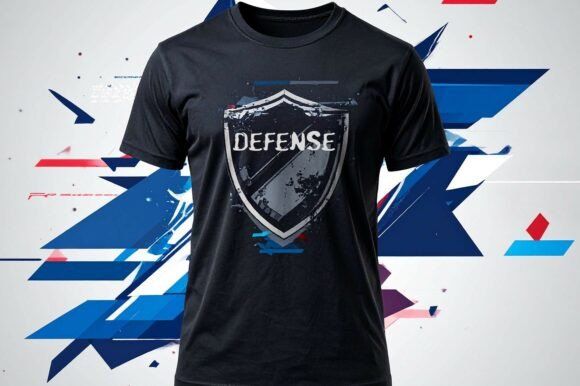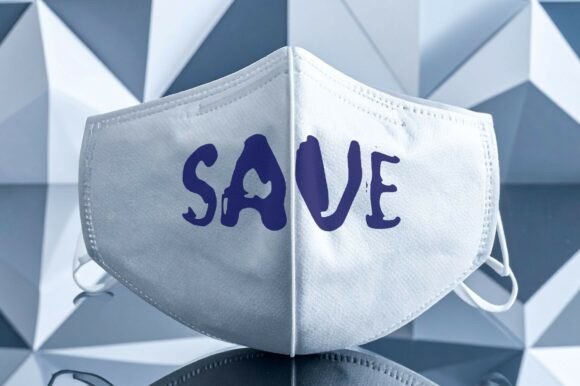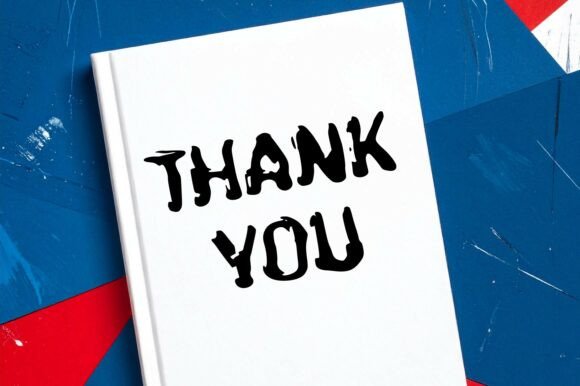
Cegah Covid Font: Unleash the Power of Bold Communication
Radiating steadfast robustness and a dash of rugged charm, Cegah Covid is an arresting display font crafted to seize the limelight and exude unrivaled authority. In a world where visual communication reigns supreme, this font emerges as a force to be reckoned with, designed to make a lasting impact on your audience.
The Industrial Edge of Cegah Covid
Drawing on the practical appeal of its blocky characters, flawlessly punctuated with tiny imperfections, Cegah Covid creates a raw and industrial edge, echoing the stencil-like imprints of classic industry stamps. This distinctive feature not only sets it apart from other fonts but also lends an air of ruggedness and dependability, making it perfect for projects that require a bold approach.
Exceptional Visual Strength
The stout weight of Cegah Covid assures instant recognition, making it a go-to font for crafting headlines or warnings that demand attention. Its exceptional visual strength enables it to transmit critical messages with vigor and precision, ensuring that your message is conveyed with clarity and impact. Whether you’re designing public notifications, wayfinding signage, or advisory posters, Cegah Covid is the perfect choice.
A Tool for Impactful Communication
Cegah Covid is more than just a typeface; it’s a tool for impactful, concise communication. Its unique blend of ruggedness and authority makes it an excellent choice for designers and crafters seeking to create a lasting impression. With Cegah Covid, you can effortlessly integrate bold and attention-grabbing text across an array of applications, including:
• Public notifications
• Wayfinding signage
• Advisory posters
• Design projects calling for a bold approach
Key Features of Cegah Covid
So, what makes Cegah Covid an exceptional font? Here are some of its key features:
• Bold and rugged design: Cegah Covid boasts a sturdy and industrial look, making it perfect for headlines and attention-grabbing text.
• Exceptional visual strength: Its stout weight and blocky characters ensure instant recognition and convey critical messages with precision.
• Unique imperfections: Tiny imperfections punctuate its characters, lending an air of ruggedness and dependability.
• Versatility: Cegah Covid can be effortlessly integrated across various applications, from public notifications to design projects.
Why Choose Cegah Covid?
In a sea of fonts, Cegah Covid stands out for its unwavering robustness and rugged charm. Here are some compelling reasons to choose Cegah Covid for your next project:
• Create a lasting impact: With Cegah Covid, you can craft attention-grabbing text that leaves a lasting impression on your audience.
• Prioritize readability: Its exceptional visual strength ensures that your message is conveyed with clarity and precision.
• Add an aura of weightiness: Cegah Covid’s stout weight and rugged design lend an air of authority and dependability to your text.
In conclusion, Cegah Covid is a powerful display font designed to make a lasting impact on your audience. With its rugged charm, exceptional visual strength, and versatility, it’s the perfect choice for designers and crafters seeking to create attention-grabbing text. Whether you’re working on public notifications, wayfinding signage, or design projects, Cegah Covid is sure to deliver.